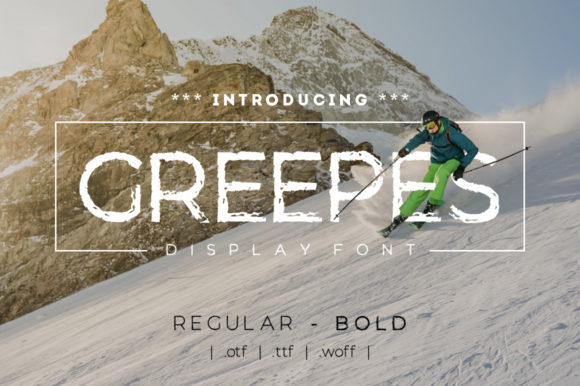
Unleash your creativity with Greepes Font, the ultimate display font family designed to grab attention and make a lasting impression. Inspired by the exhilarating energy of winter skiing, Greepes embodies the essence of adventure and freedom. With its bold strokes and dynamic curves, this font is the perfect choice for creating text logos that exude confidence and style.
Imagine your brand's logo rendered in the striking lines of Greepes Font. Whether you're a fashion label, a music producer, or a graphic designer, Greepes will elevate your designs to new heights. Its versatility knows no bounds, from posters that demand attention to clothing designs that ooze individuality, Greepes is the perfect font to make your creations stand out.
With Greepes Font, you'll effortlessly create logos that capture the imagination. Its visually compelling letterforms are designed to turn heads and leave a lasting impression. Whether you're designing for print or digital media, Greepes will ensure your message is communicated with impact and clarity.
Step into the world of Greepes Font and discover a font family that will transform your creative projects. Its bold and captivating design will add a touch of sophistication and edge to everything you create. Say goodbye to ordinary fonts and embrace the power of Greepes, the font that will take your designs to the next level.
As the creator of Greepes Font, Odbrand Desain, has meticulously crafted each letterform to embody the spirit of adventure and exploration. Every curve and line is a testament to their dedication to creating a font that is both visually stunning and highly functional.